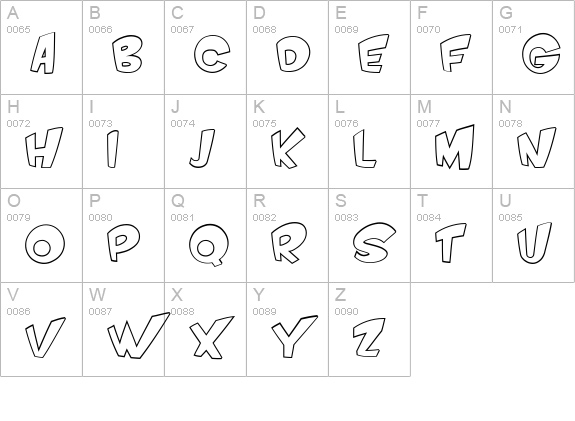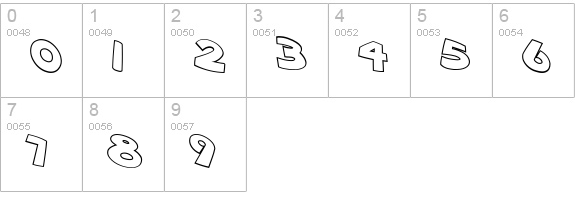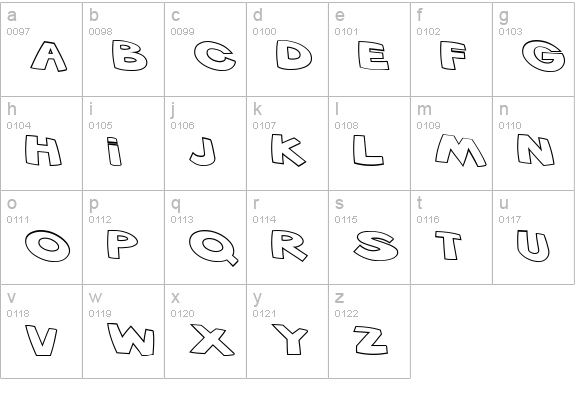
VTC ScreamItLoud Outline Font Details
Introducing the VTC ScreamItLoud Outline font – a stunning display font that will make your designs stand out from the crowd. This font is bold, edgy, and full of personality, making it perfect for projects that require a strong impact. With its unique outline style, VTC ScreamItLoud brings a sense of energy and excitement to any design. Whether you're creating attention-grabbing headlines, eye-catching posters, or innovative branding materials, this font will not disappoint. What makes VTC ScreamItLoud even more appealing is that it is available for free! That's right, you can download this incredible font without spending a dime. Simply head over to FontsMarket.com, and you'll find VTC ScreamItLoud waiting for you, ready to take your designs to the next level. Don't miss out on the opportunity to add this outstanding font to your collection. Download VTC ScreamItLoud today and let your creativity scream loud and clear!